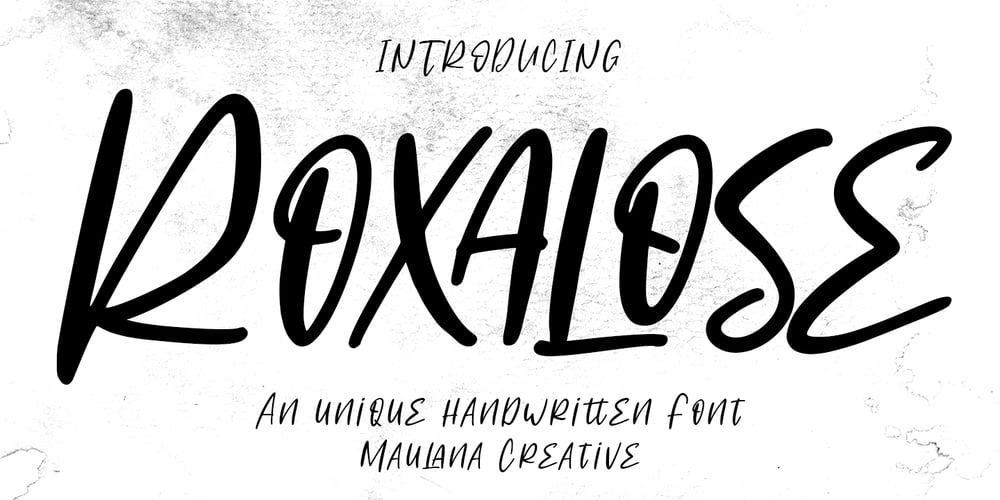
Roxalose Font Family was designed by Gilang Maulana and published by Maulana Creative. Roxalose contains 1 styles and family package options. Roxalose is an expressive modern handwritten display font. With slanted regular contrast stroke, fun character. To give you an extra creative work. Roxalose font support multilingual more than 100+ language. This font is good for logo design, Social media, Movie Titles, Books Titles, a short text even a long text letter and good for your secondary text font with sans or serif. Make a stunning work with Roxalose font. Cheers, Maulana Creative